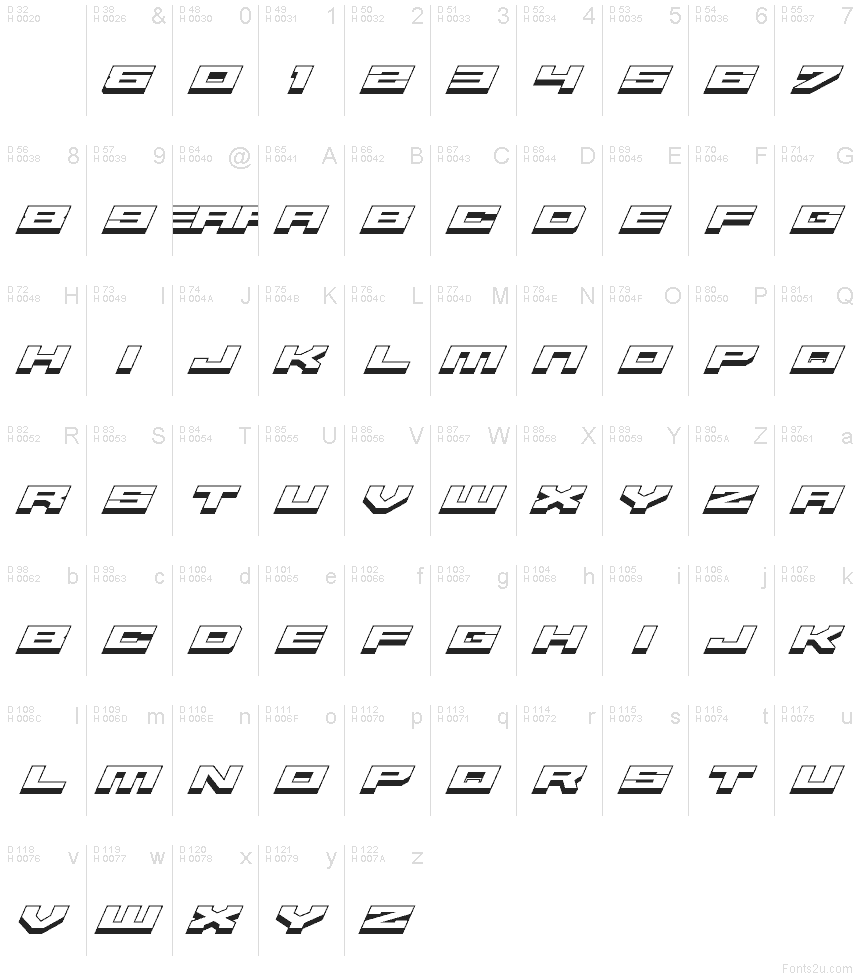
Gear6-3d
Gear6 3d font by Youssef Habchi is a free techno 3D display font built for motion and impact. With a hard forward lean, chamfered edges, and cut-in speed lines, it looks like it’s slicing through air even when set in black and white. As part of the Gear6 family, its dimensional strokes and angular rhythm deliver that high-octane, engineered feel without needing effects.
Using Gear6 3d, headlines snap to attention and carry a clean, mechanical swagger. It shines on esports logos, racing posters, sci‑fi titles, automotive decals, product packaging, YouTube thumbnails, and event badges. This free font works beautifully in wide tracking and big sizes; pair it with a neutral geometric sans for body copy at half the size to keep the focus on the velocity.